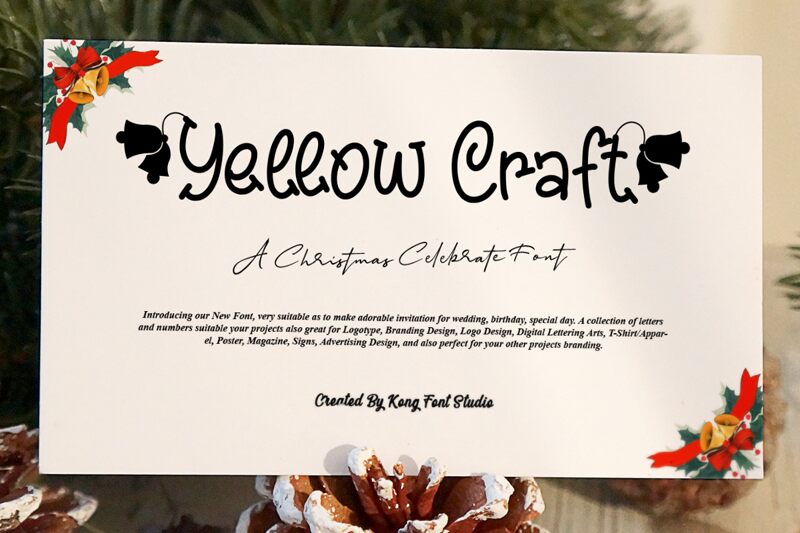
Yellow Craft Christmas, designed by Kong Font, brings the festive spirit of the holidays directly to your creative projects. This font boasts a delightful Christmas style that captures the essence of the season with its semi-light weight and playful character shapes. The whimsical design elements suggest a handcrafted aesthetic, ideal for personalized greeting cards, event invitations, or seasonal marketing materials.
Its unique letterforms are adorned with subtle holiday motifs that evoke a warm, inviting atmosphere. Yellow Craft Christmas stands out visually with its balance of cheerfulness and readability; it's a font that not only enhances visual appeal but also maintains clarity in communication.
Whether for print or digital use, Yellow Craft Christmas is versatile enough to infuse any project with a touch of holiday magic while ensuring your message resonates clearly and memorably.